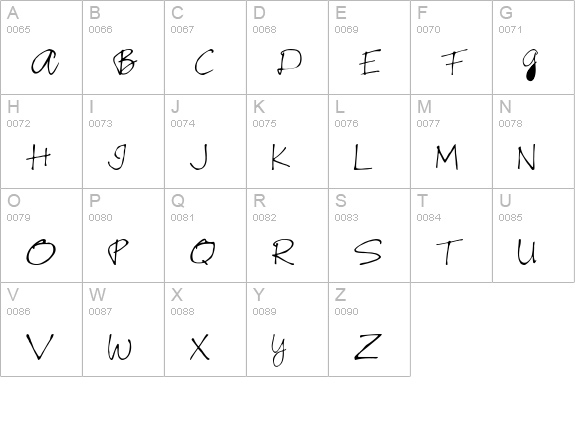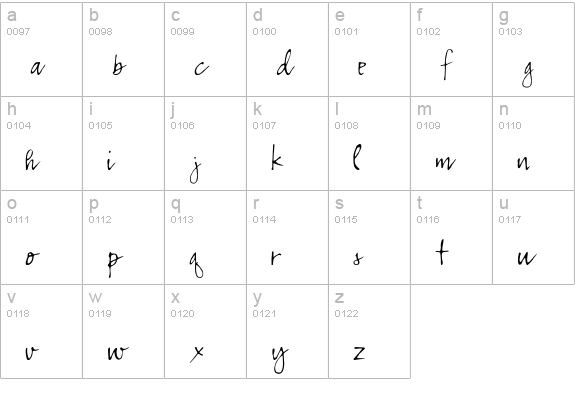
RSRiverside Font Details
RSRiverside font is a modern and versatile typeface that brings a touch of elegance to any design project. With its clean lines and stylish curves, this font is perfect for a wide range of applications, from branding to graphic design to web development. The sleek and sophisticated look of RSRiverside font makes it ideal for creating professional and eye-catching designs that stand out from the crowd. One of the best things about RSRiverside font is that it is completely free to download at FontsMarket.com. This means that you can enjoy all the benefits of this beautiful font without having to spend a penny. Whether you're a seasoned designer looking to add a new font to your collection or a beginner looking for a stylish and easy-to-use option, RSRiverside font is the perfect choice. Download it today and take your design projects to the next level.